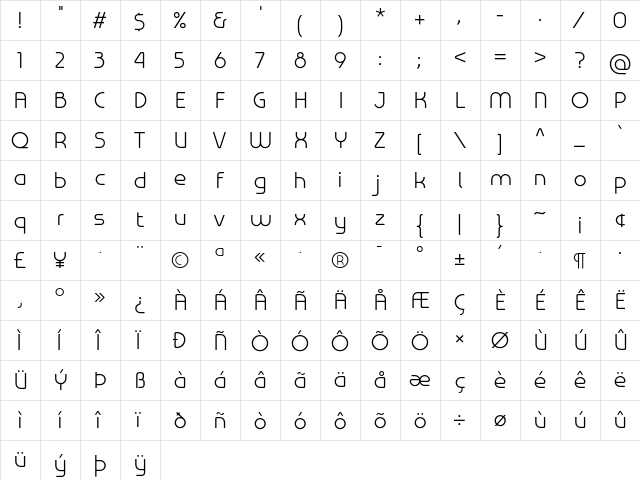
Omni Light Font Preview
Omni Light
Omni Light Font Details
| Foundry | James Marsh |
| Designer | James Marsh |
Design Context for Omni Typeface
Omni takes a measured approach to typography — its balanced proportions and neutral character make it a reliable workhorse for both digital and print work. Its slender proportions lend an understated elegance to any composition.